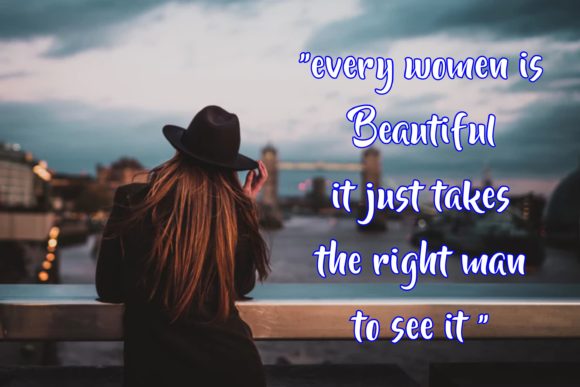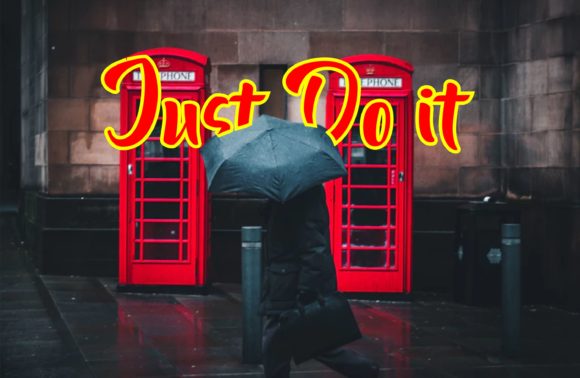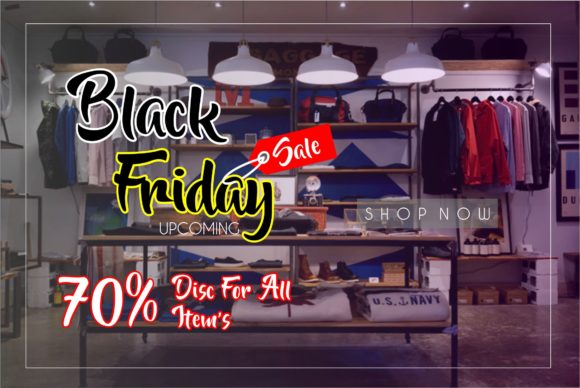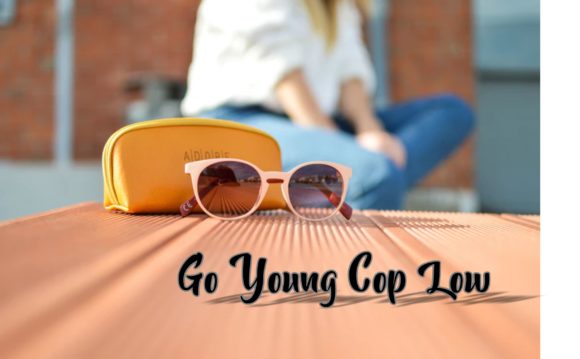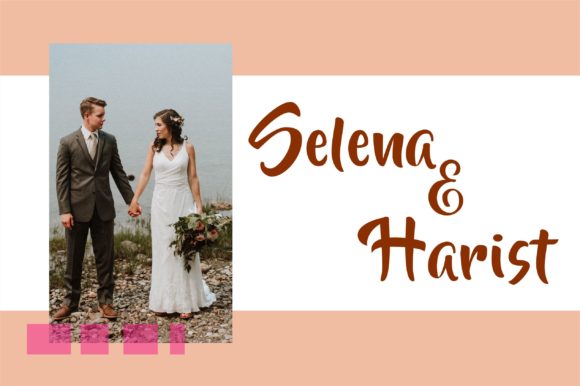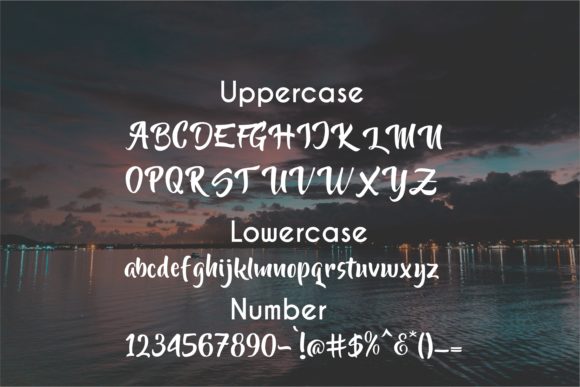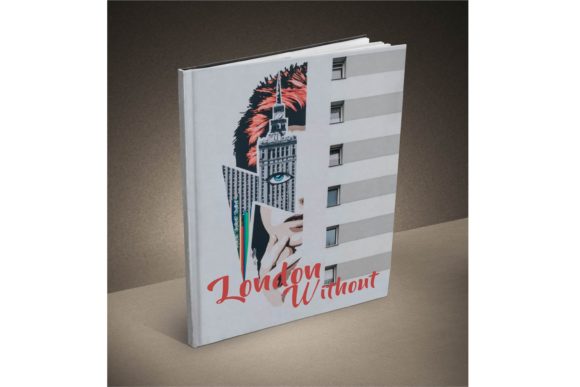
North Landon Script Font
About North Landon Script Font
The North Landon is a striking script font. It has an unique and distinctive style that will make your design stand out.